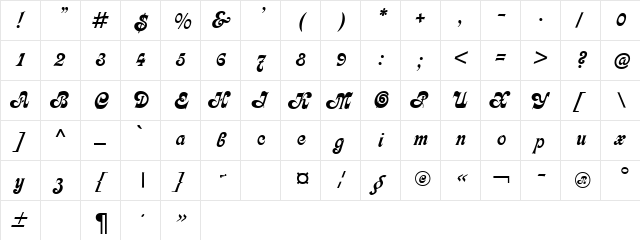
Asessor Regular
Design Context for Asessor Typeface
Asessor is a composed and adaptable typeface that performs quietly and consistently across a wide range of design contexts.